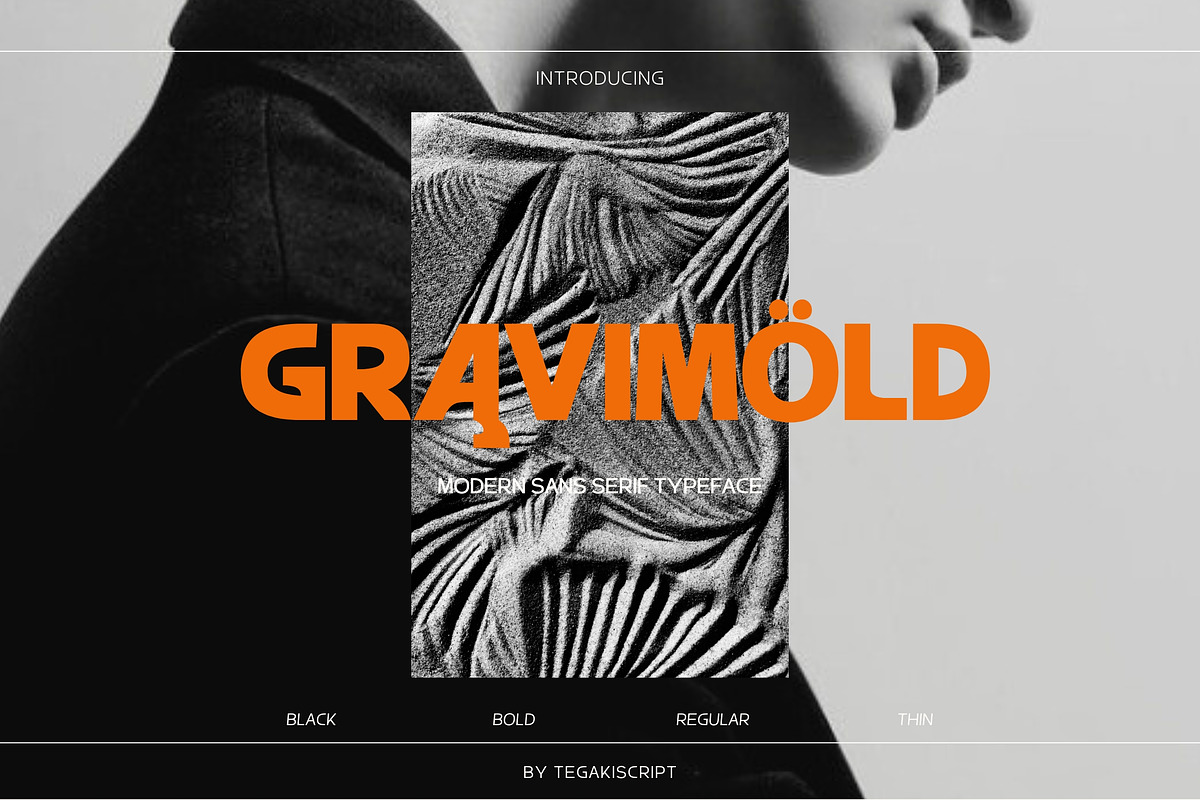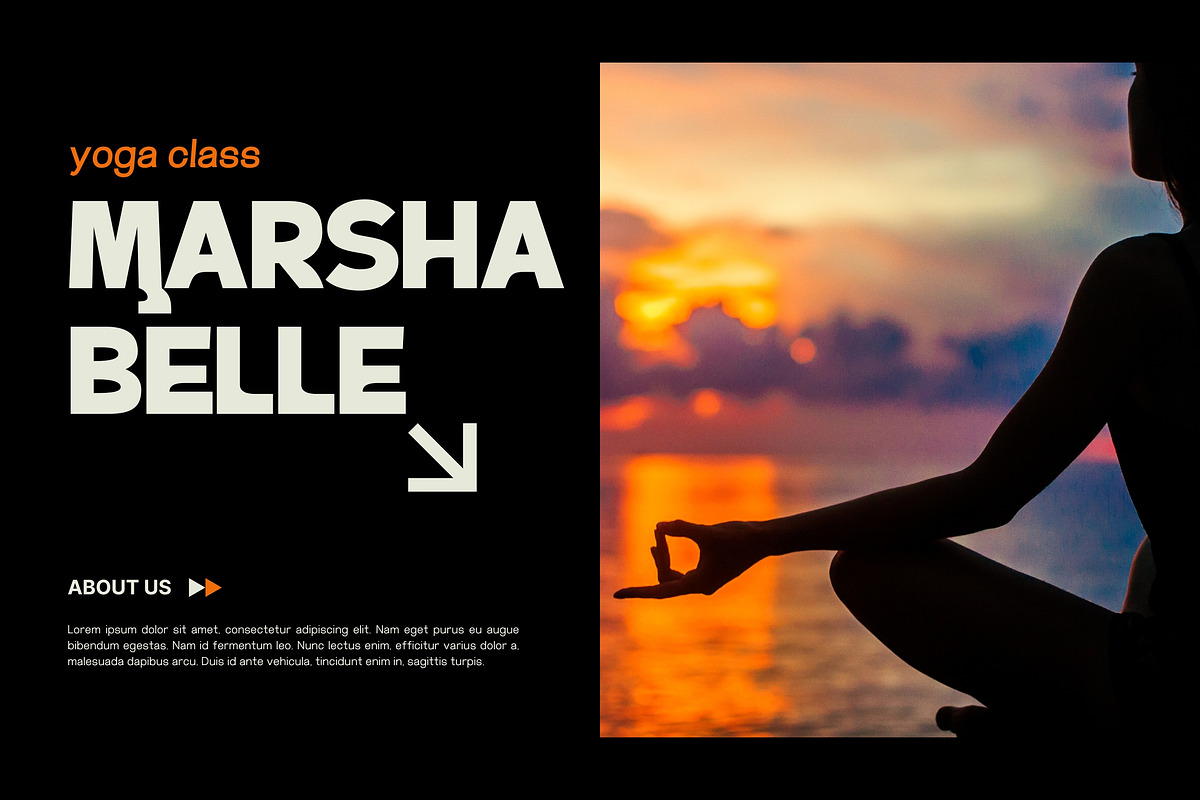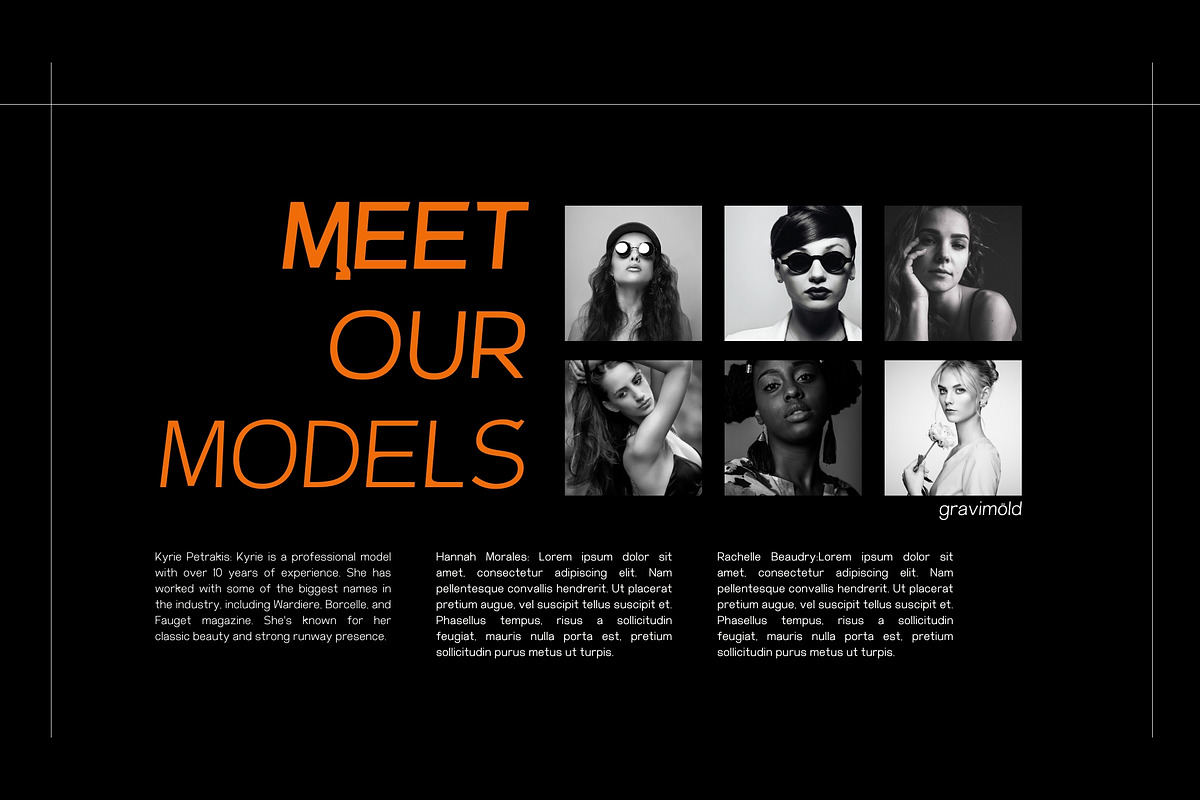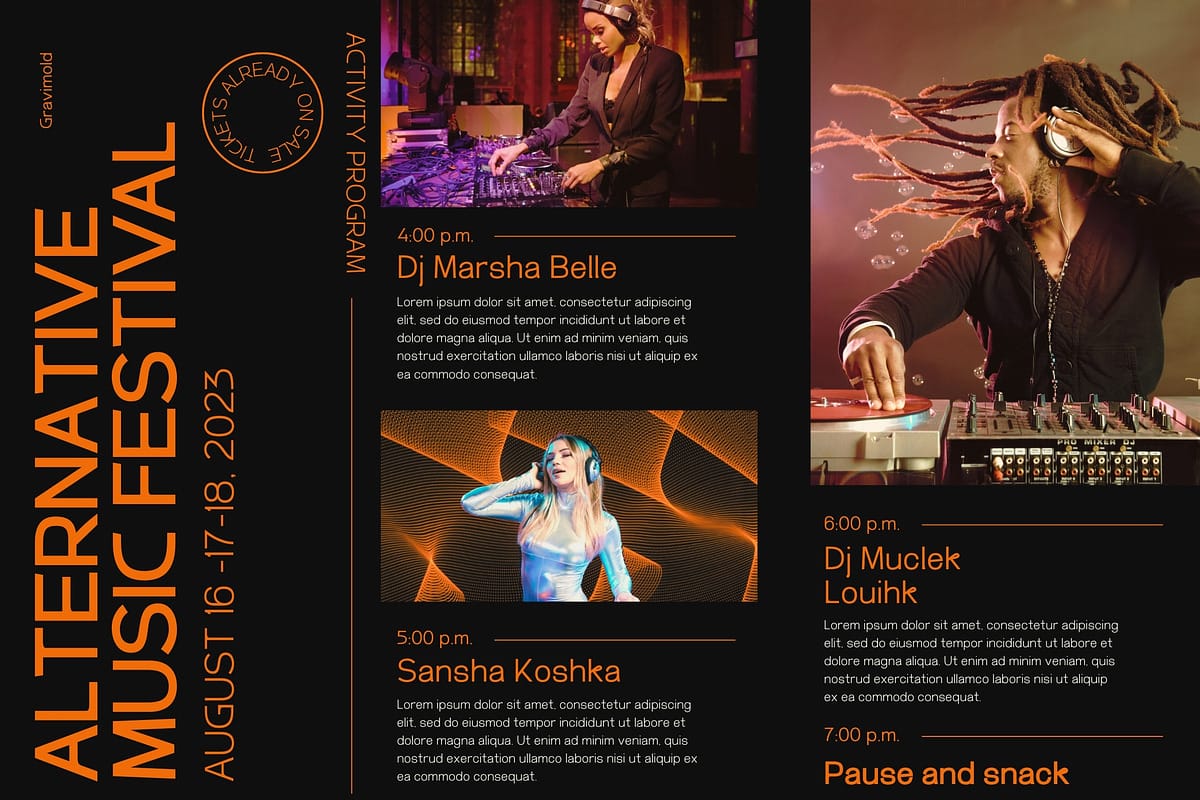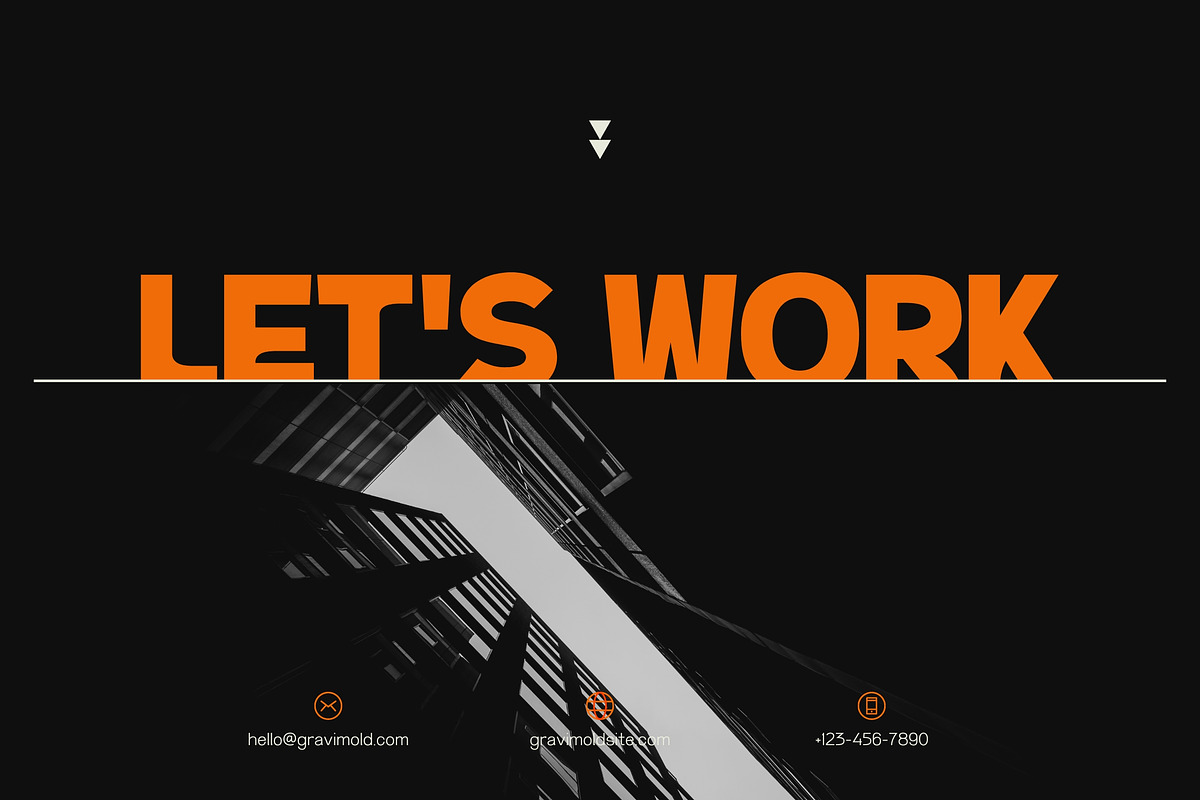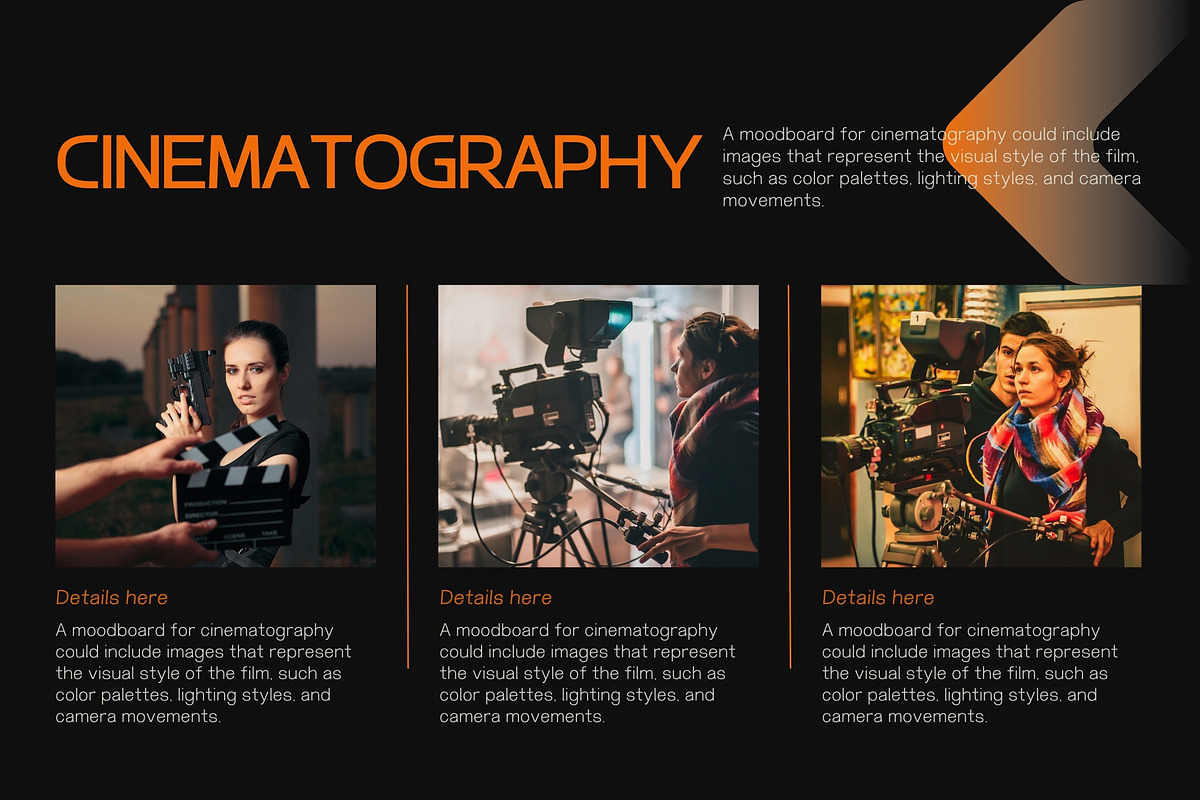
Gravimold Typeface
Introducing Gravimold - Modern Sans Serif Typeface
Gravimold Modern sans-serif fonts are characterized by their clean, minimalist design, often featuring geometric shapes and straight lines. These fonts are popular for their readability and versatility in various design contexts. A modern sans-serif font with four different weights and each weight having a slant style can be described as follows:
- Thin: Delicate and refined, ideal for elegant designs. The slant style adds a subtle italic touch.
- Regular: Well-balanced and highly readable, suitable for both body text and headlines. The - slant style offers gentle emphasis.
- Bold: Strong and impactful, perfect for headlines and titles. The slant style creates a dynamic, eye-catching effect.
- Black: Maximum impact and visibility, great for prominent text elements like logos. The slant style results in a striking, assertive appearance.
Each weight and its corresponding slant style ensure a consistent visual harmony while offering designers a range of options to achieve various typographic effects, from subtle emphasis to bold declarations. This versatility makes the font highly adaptable for modern design needs across different media and applications.